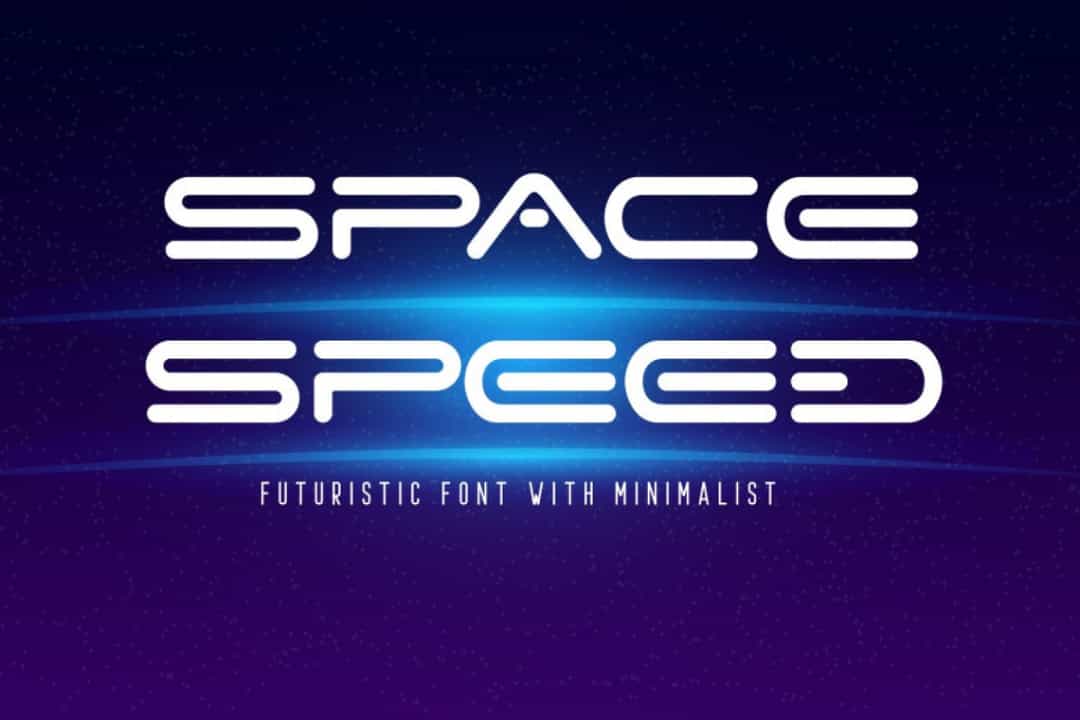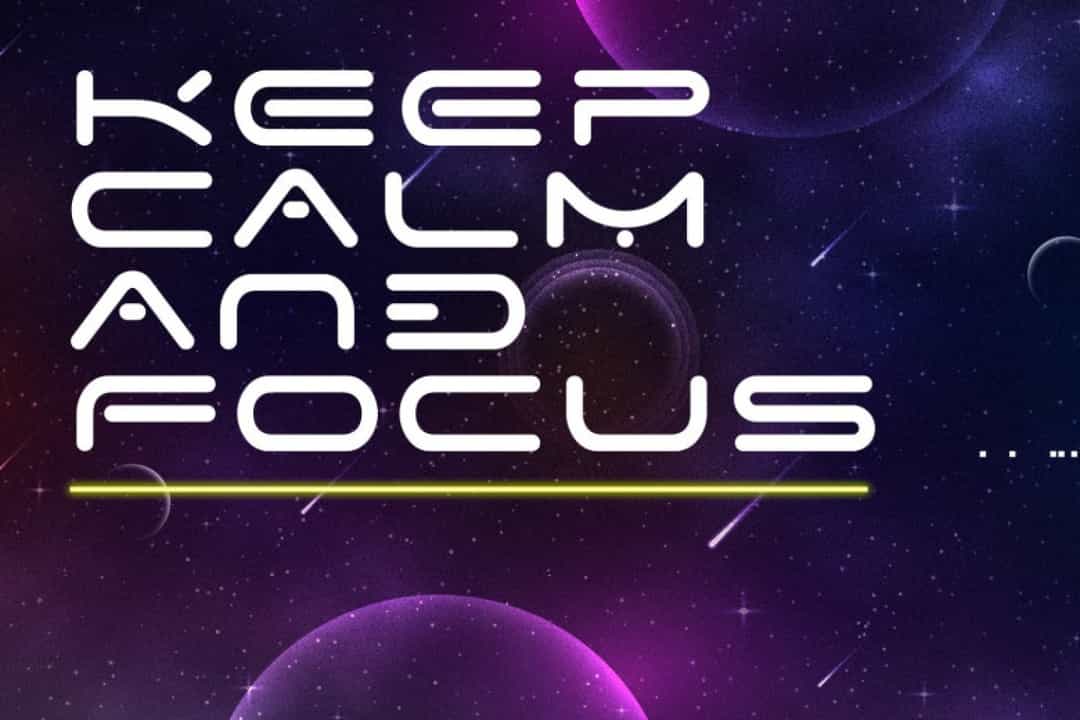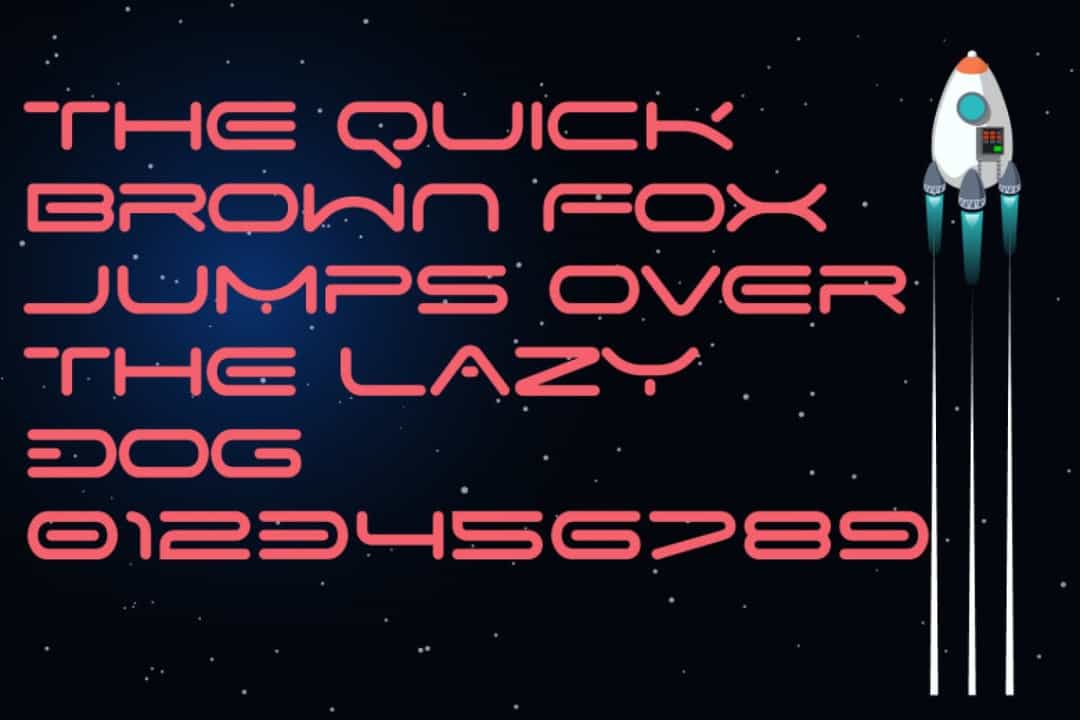
Space Speed Font is a modern font with simple, broad letters. Featuring futuristic and geometric corners that complement technology themes perfectly. Additionally, this font contains lowercase and uppercase characters as well as simple punctuation marks and numbers – ideal for themes related to technology!